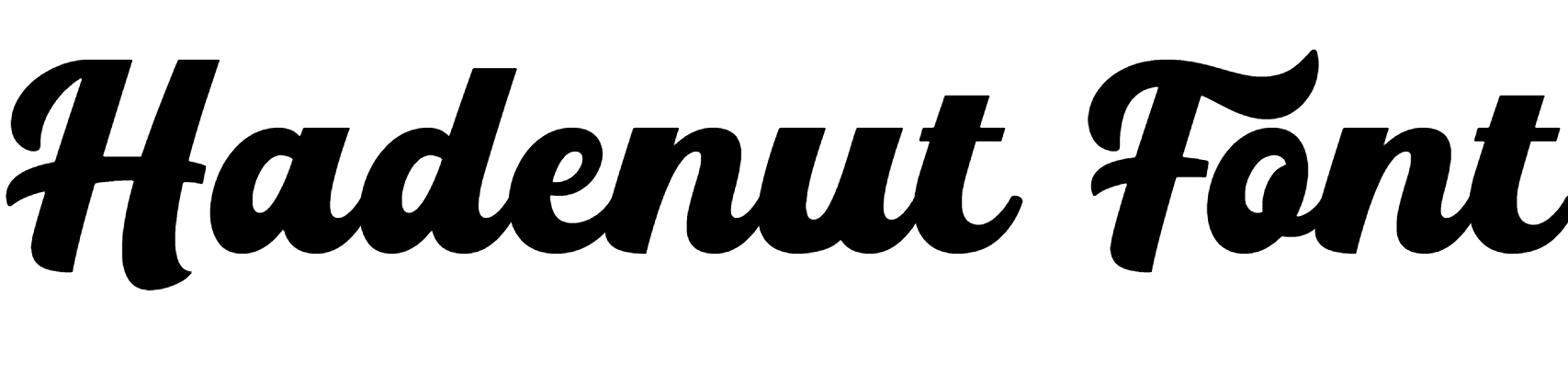
Hadenut
Hadenut is a script font created by Burhan Afif and released through HansCo Studio (2023). The letters have the smooth movement of real pen lettering, which is why even a single name looks special in it. You can download it for free and test it with your own words in the preview above.
- Designer: Burhan Afif
- Publisher: HansCo Studio
- OpenType features: 4 stylistic sets
- Extra characters: 62 copy-and-paste alternates (Private Use Area)
What You Can Type With Hadenut
With complete upper and lowercase letters and all ten digits, Hadenut is ready for real wording, not just a single headline. Common punctuation such as &, !, ? and @ is included as well. It also has the accented letters you need for Spanish, French, German, Portuguese and Italian.
How to Use the Alternate Letters in Hadenut
Where Hadenut Works Best
Designers usually reach for fonts like Hadenut when they're making wedding invitations, logos and signature-style headings. Script fonts read best in short bursts, so keep it to names, titles and one-line quotes. Skip all caps: script capitals are drawn to start a word, not to fill one.
Hadenut Font FAQs
Who designed Hadenut font?
Does Hadenut support accented letters?
Yes. Hadenut includes the accented letters needed for Spanish, French, German, Portuguese and Italian, so it works for more than just English.